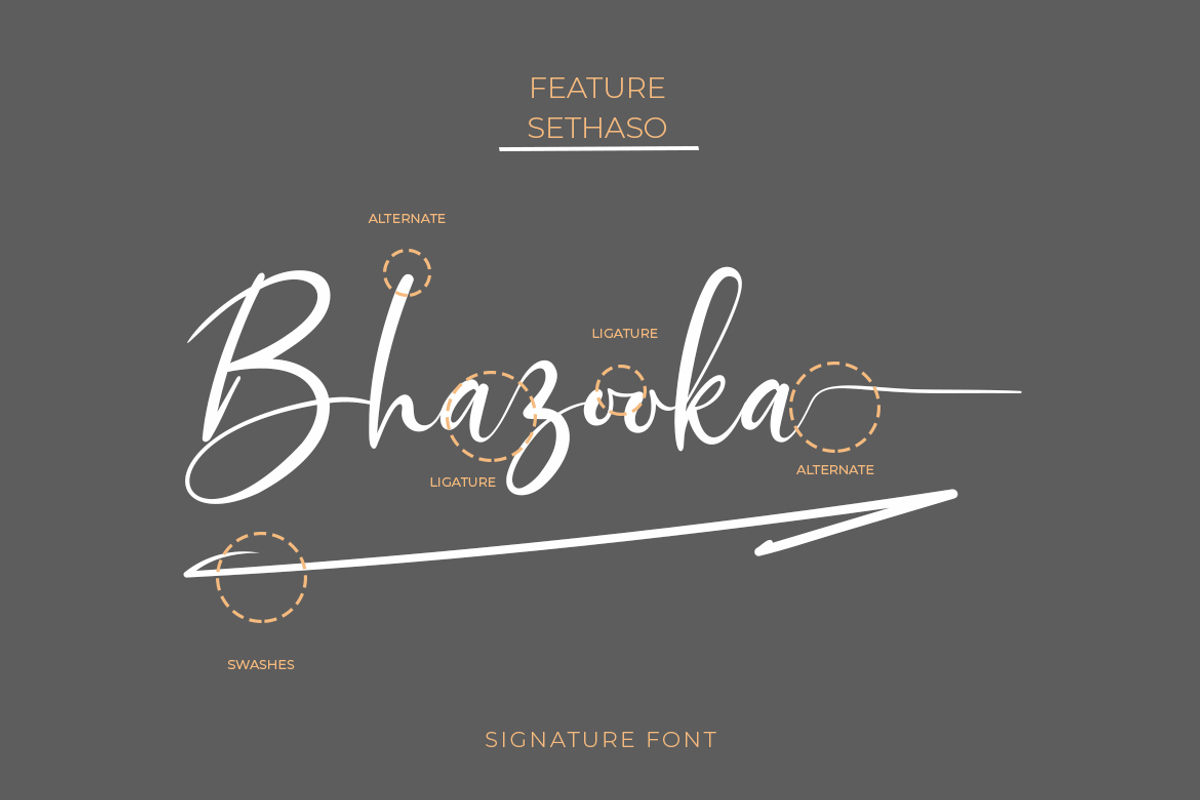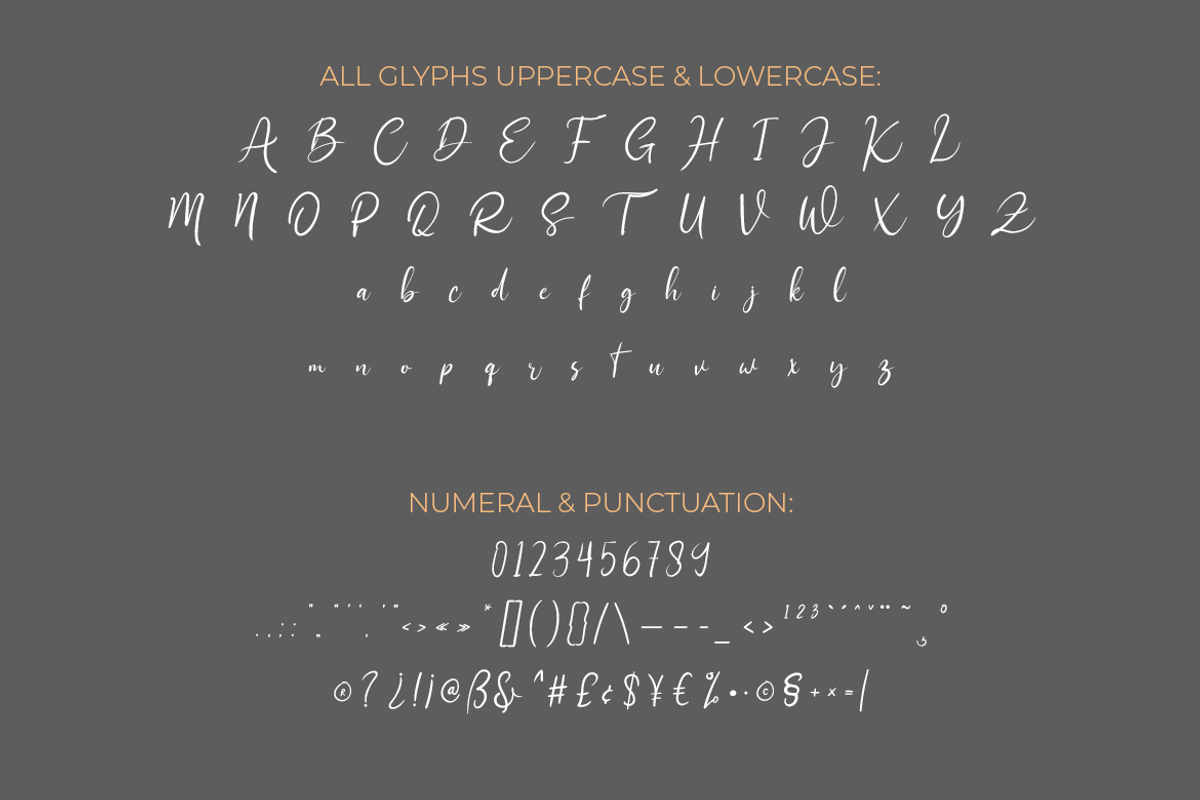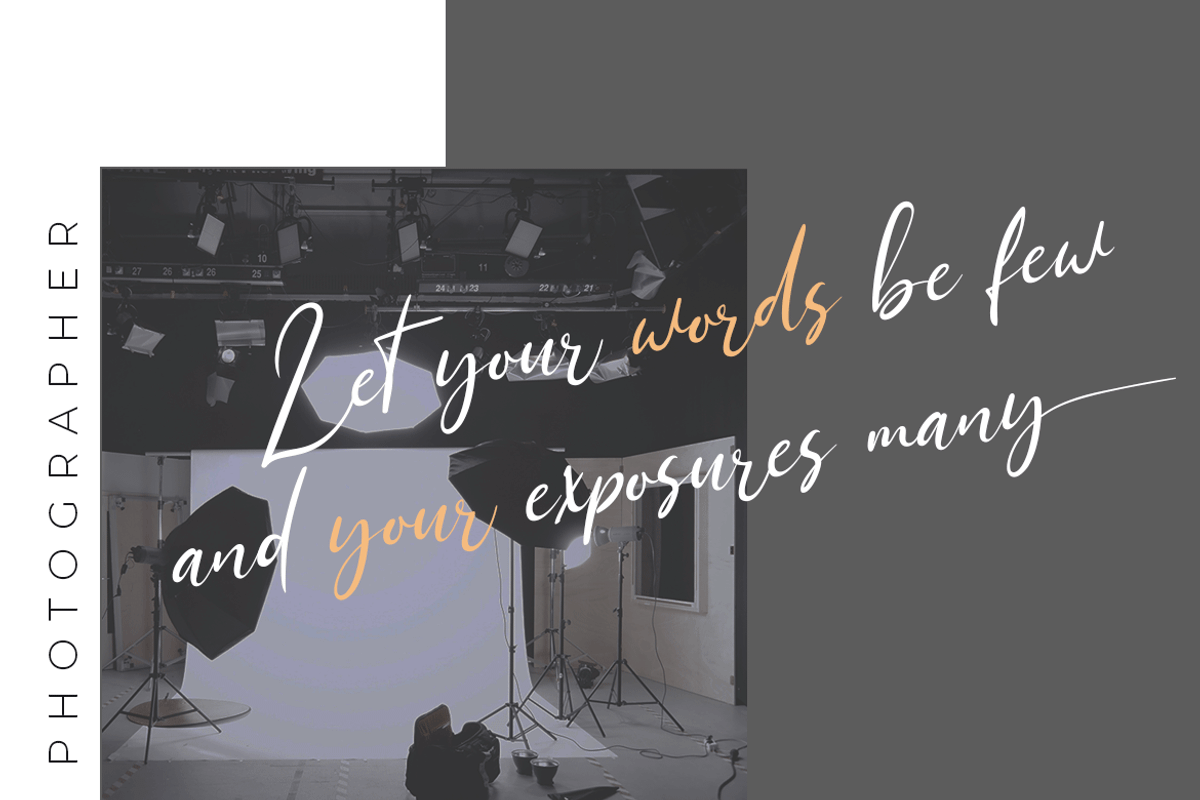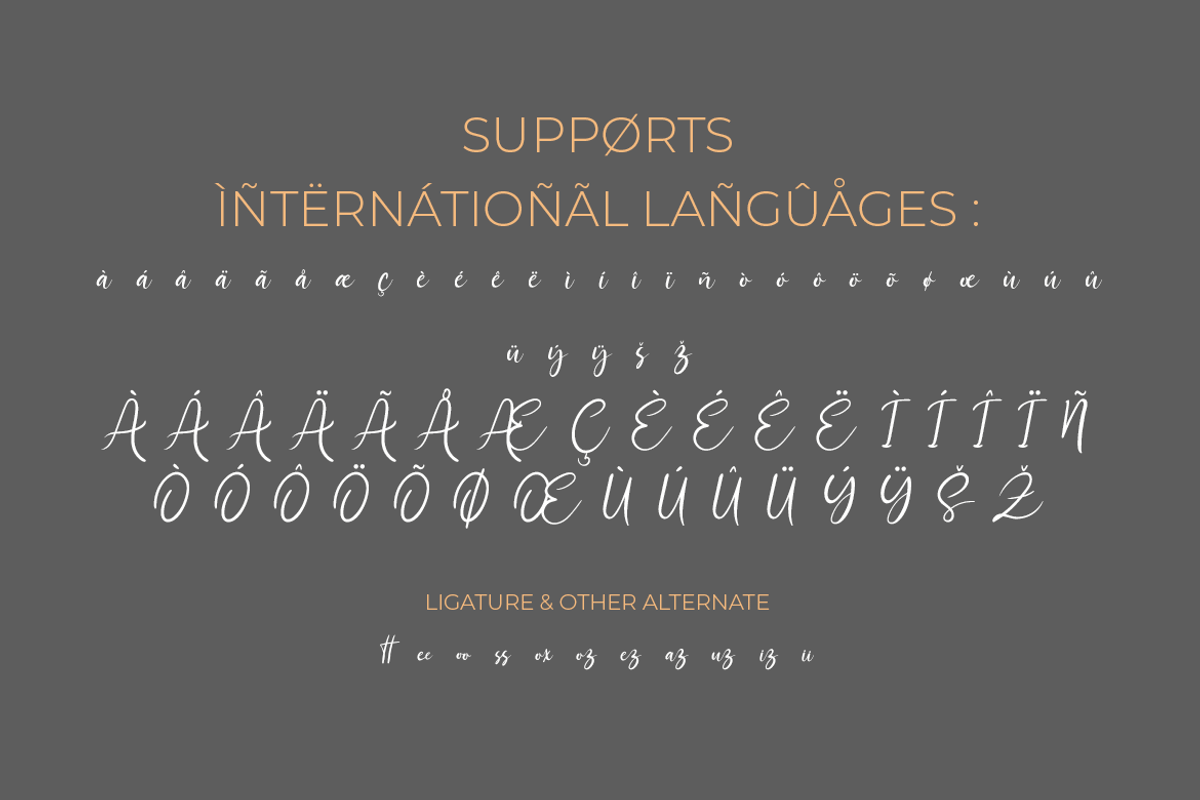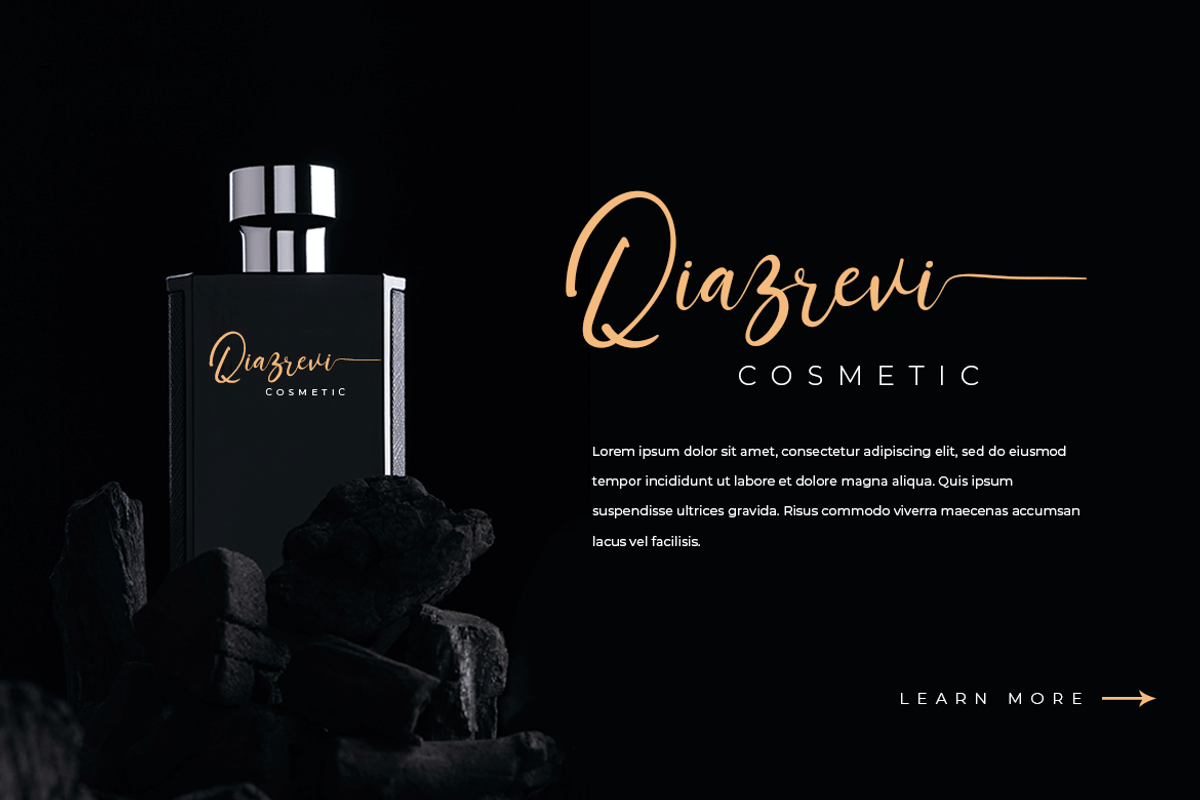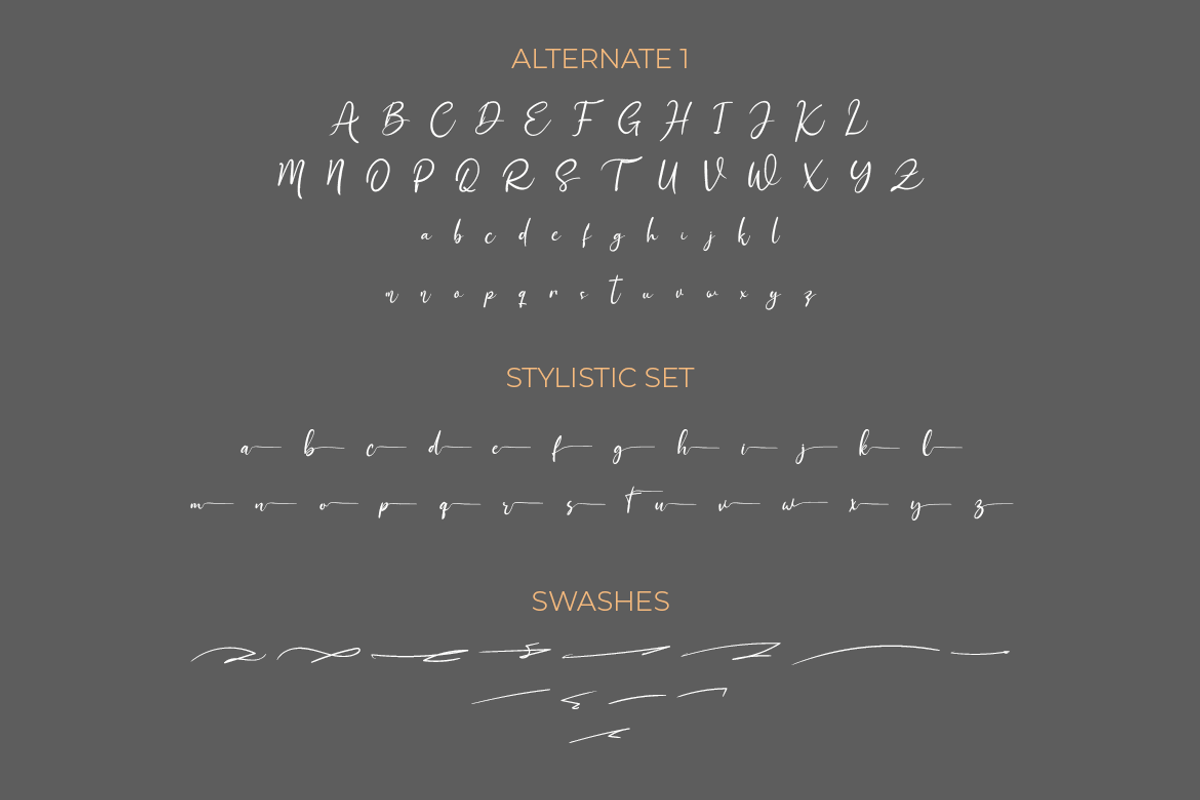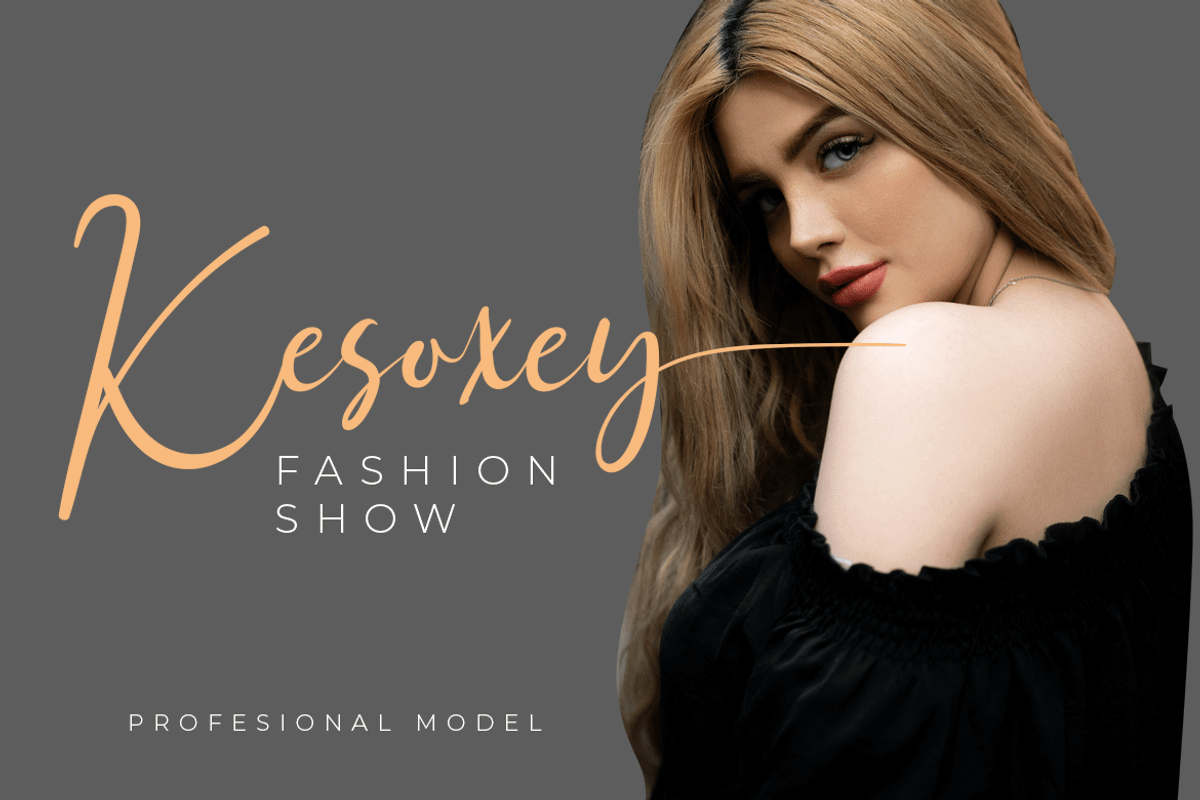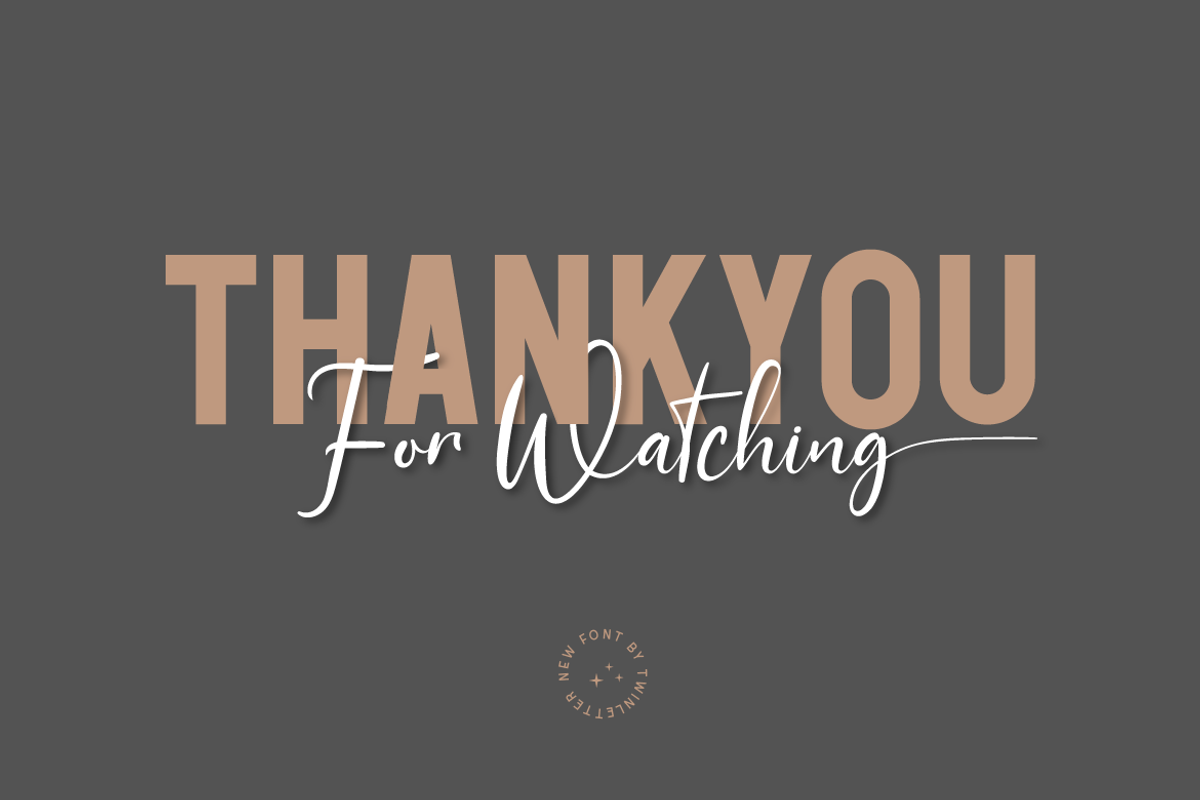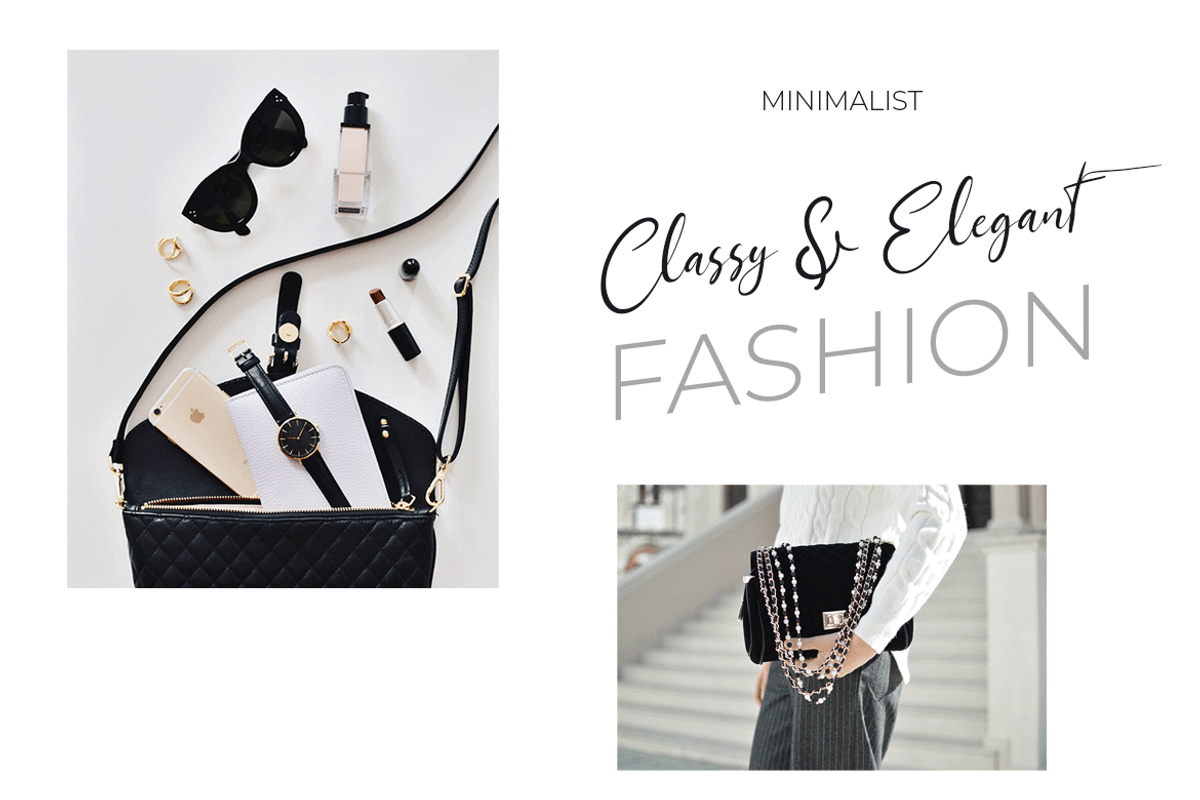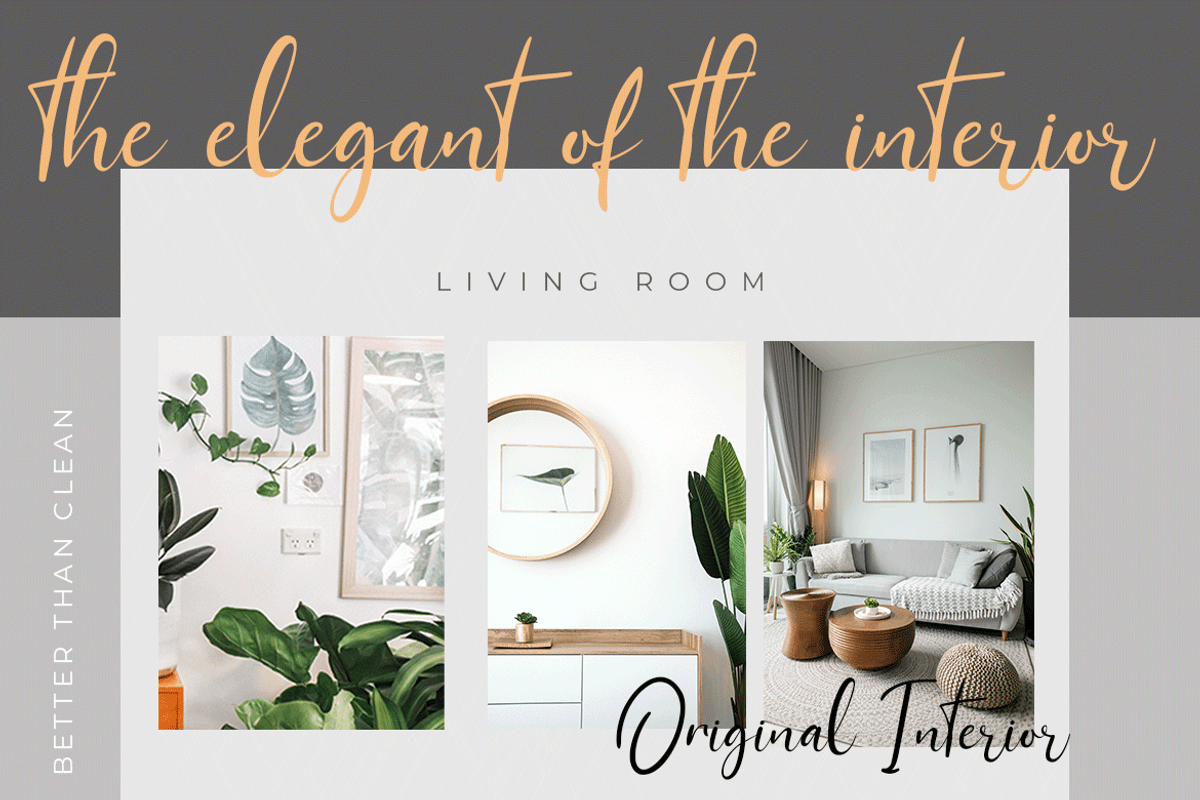
Sethasso
Introducing our newest font called Sethasso, clean simple, and elegant themed signature font, which is written in natural hand strokes making this font more charismatic natural, This font in addition to having a charming and unique shape is also equipped with various alternative options that make it easier for you to create beautiful and extraordinary designs
This font is perfect for business cards, photography studios, autographs, interior designs, model names, coffee late, travel, weddings, cosmetics, jewelry, social media posts, product packaging, watermarks, special events, or anything else. Start using this font to add an authentic and heartfelt vibe to any design project.